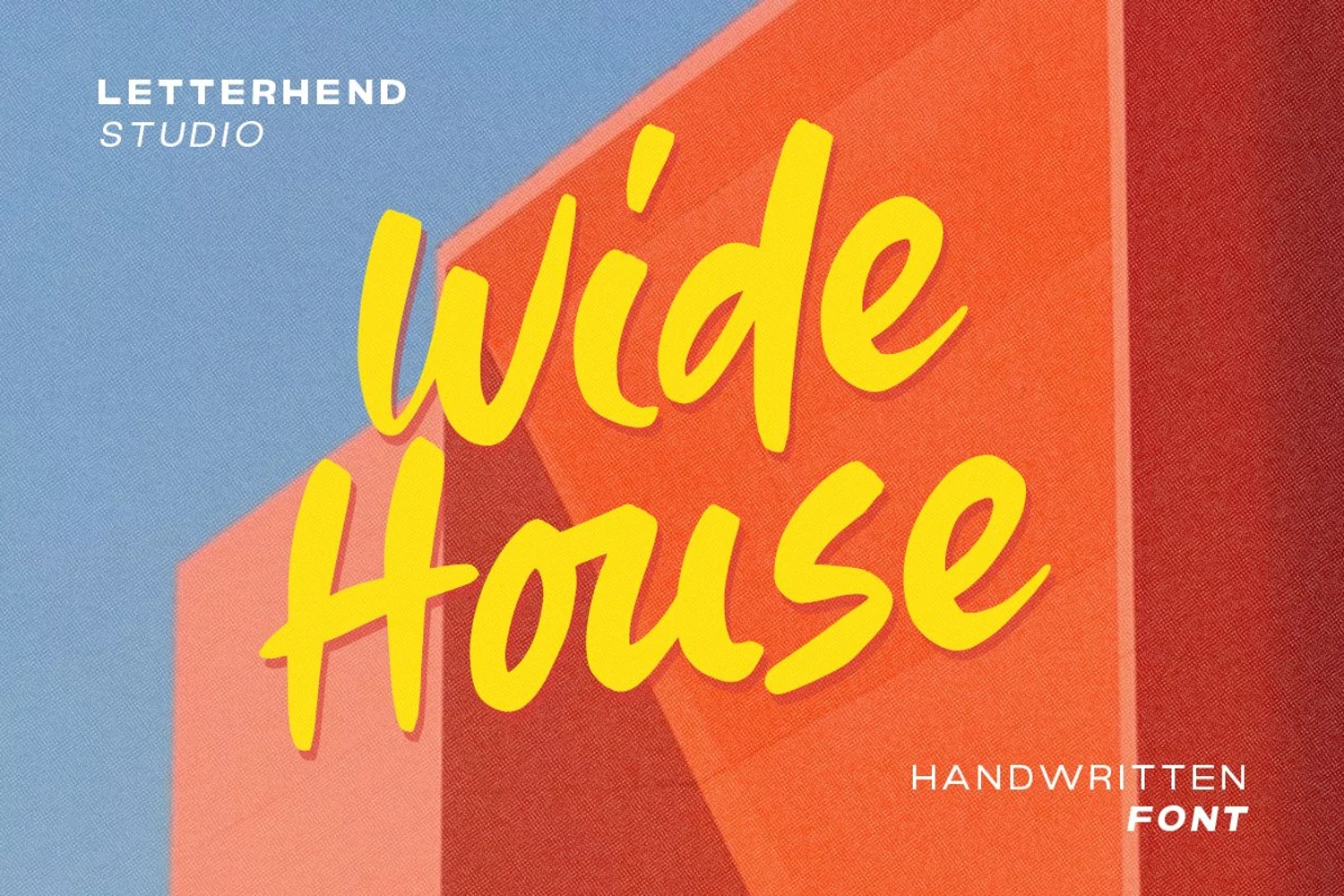
Wide House- Handwitten Font
Introducing Wide House, a playful and charming hand-written font that will add a touch of whimsy to your designs. This font has a casual and relaxed vibe that makes it perfect for projects that require a friendly and approachable feel. The letters are slightly wider than usual, giving it a modern yet comfortable appearance.
Th works well for various design projects especially in logo, and the other various formal forms such as invitations, labels, logos, magazines, books, greeting / wedding cards, packaging, fashion, make up, stationery, novels, labels or any type of advertising purpose.